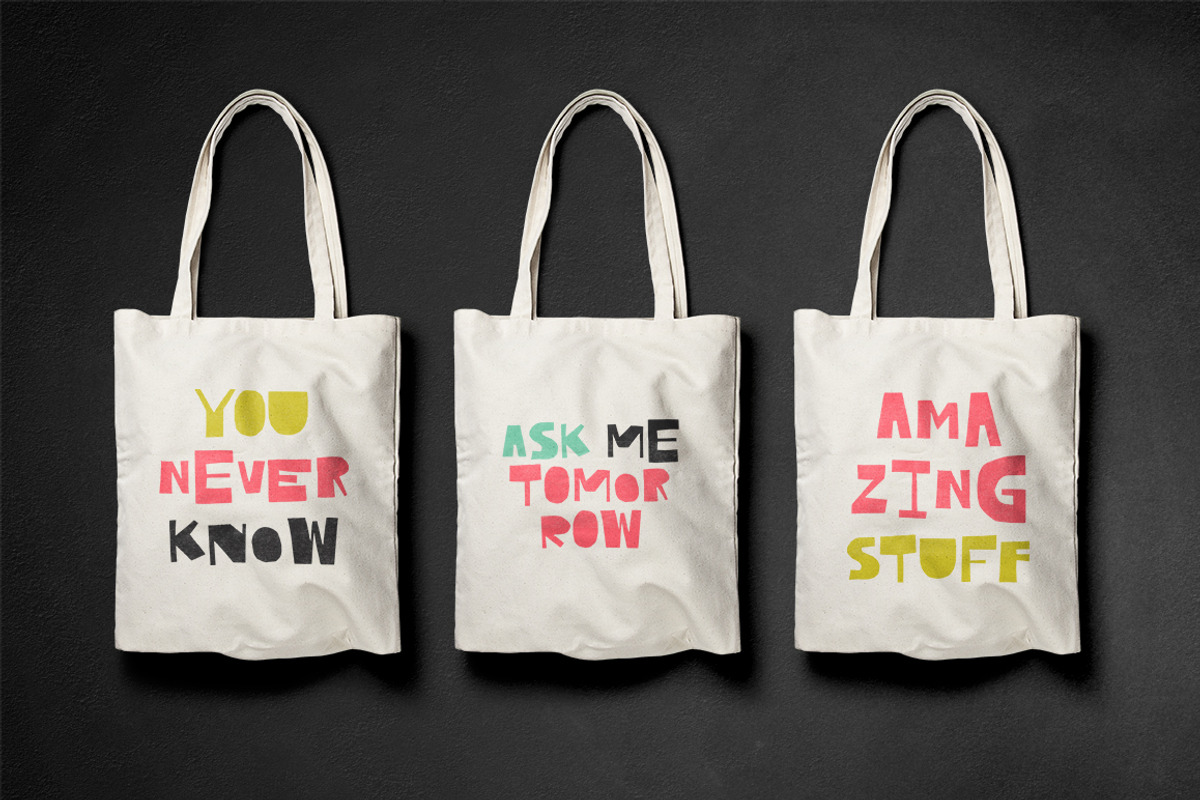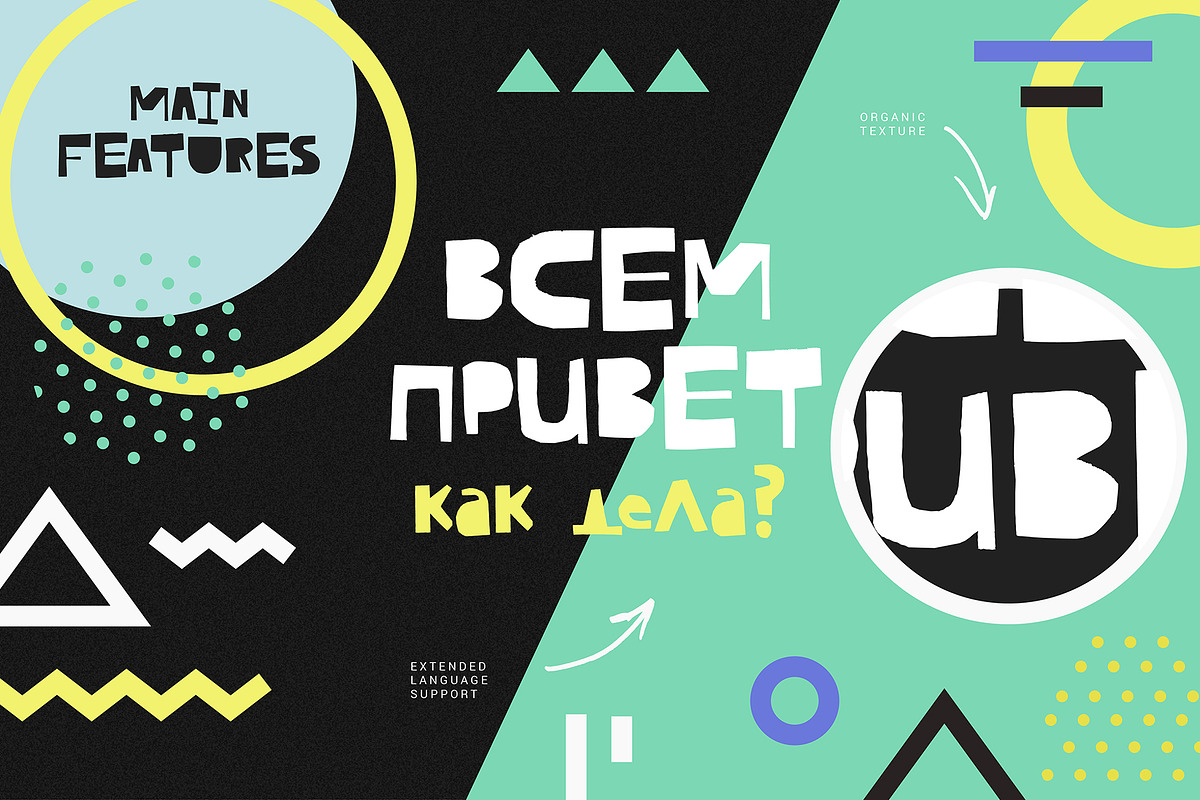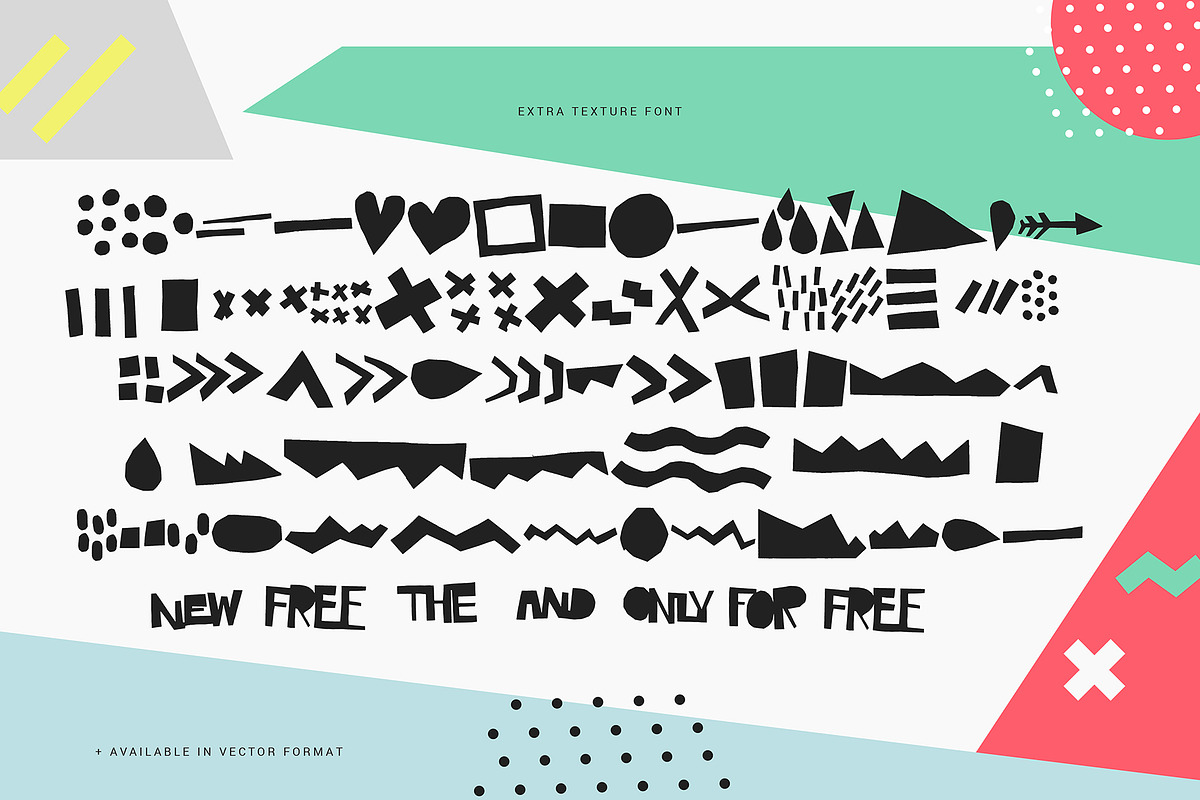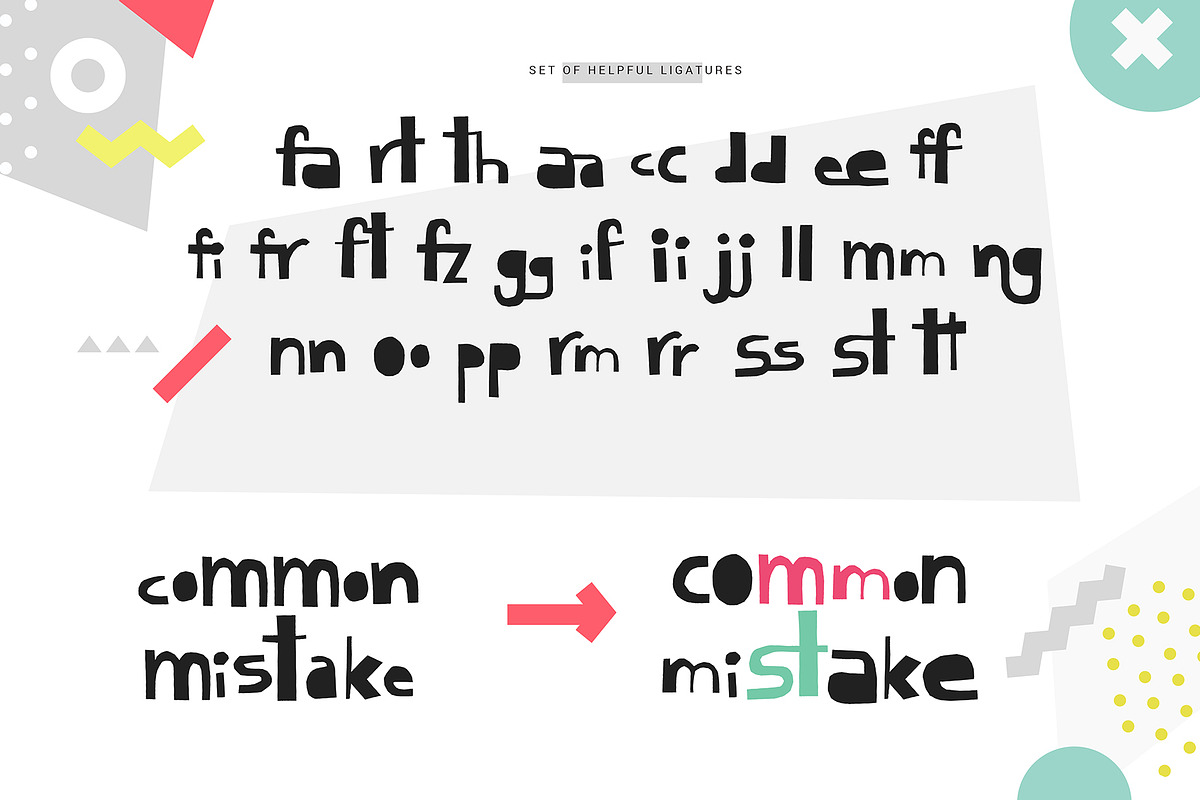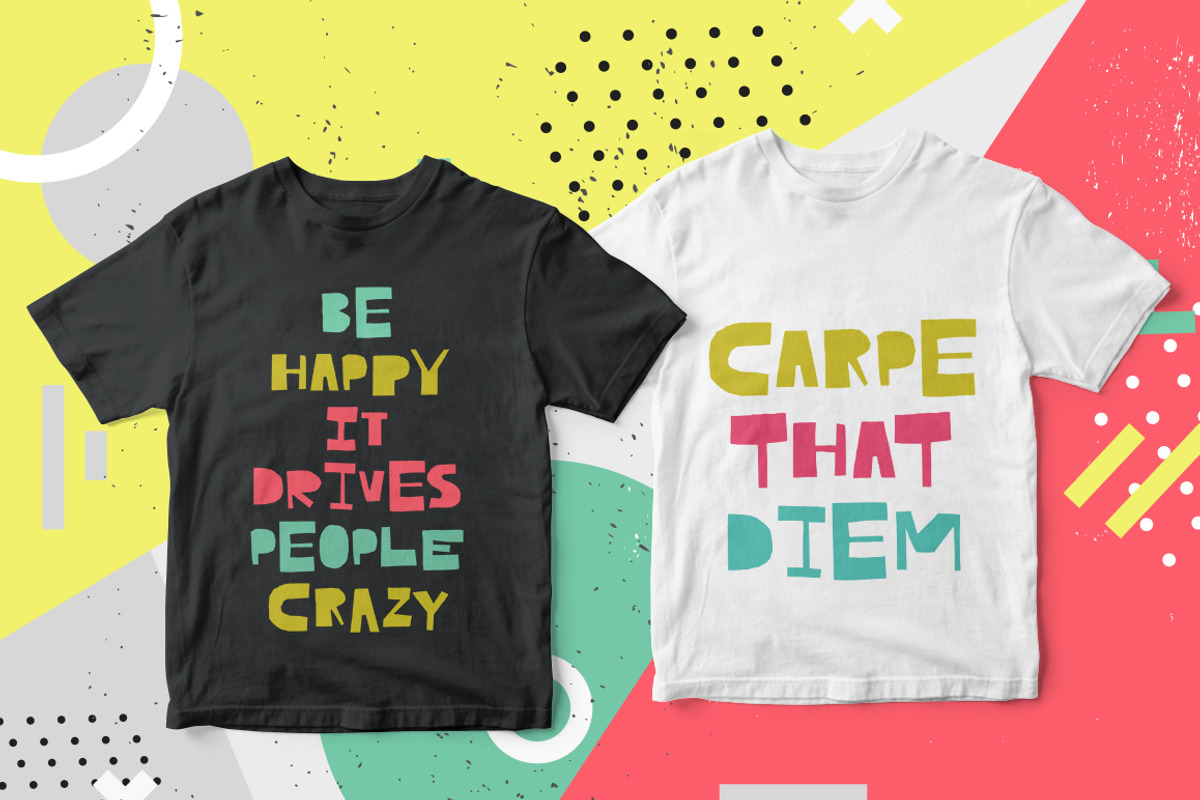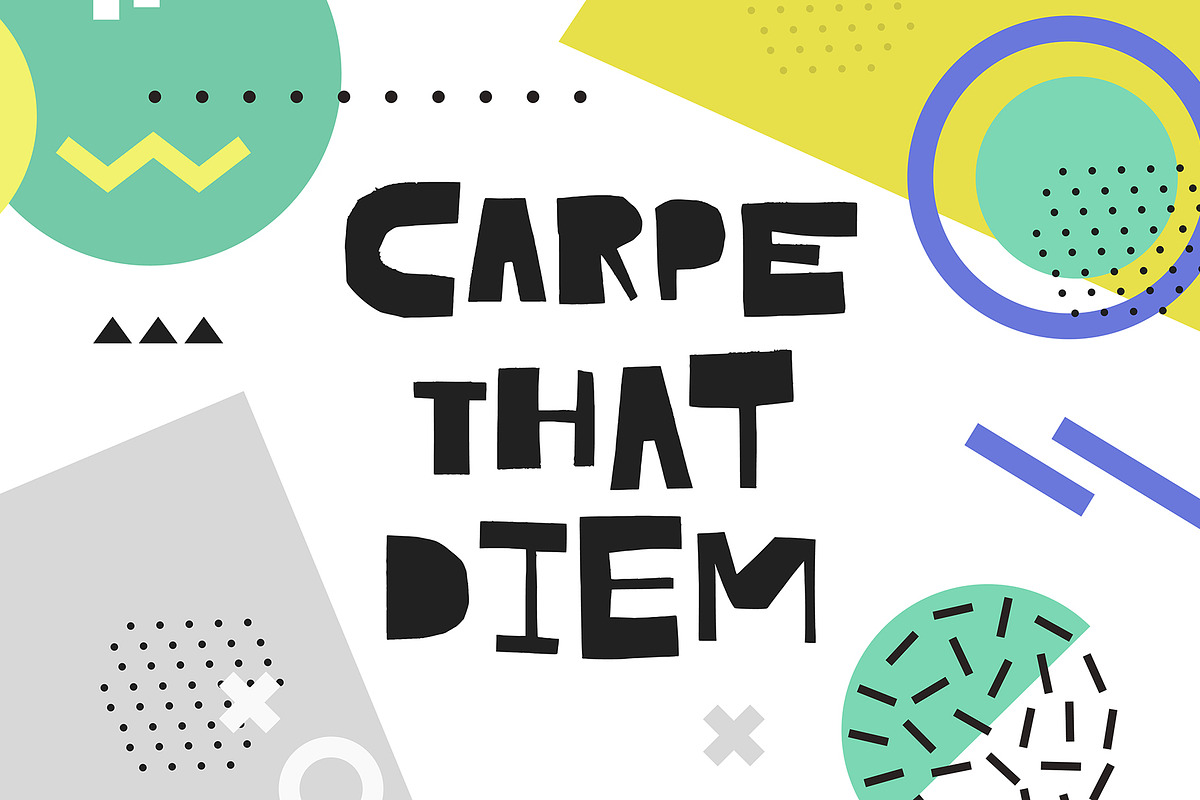
Cutout - bold uppercase font
Cutout - bold uppercase font by Favete Art is a font selected for branding, posters, packaging, typography.
- Now it includes not only uppercase letters, but lowercase (with alternative set & ligatures) and extended language support, including Cyrill
Why Cutout - bold uppercase font is worth a look
Cutout - bold uppercase font by Favete Art fits naturally into Branding, posters, packaging, typography.